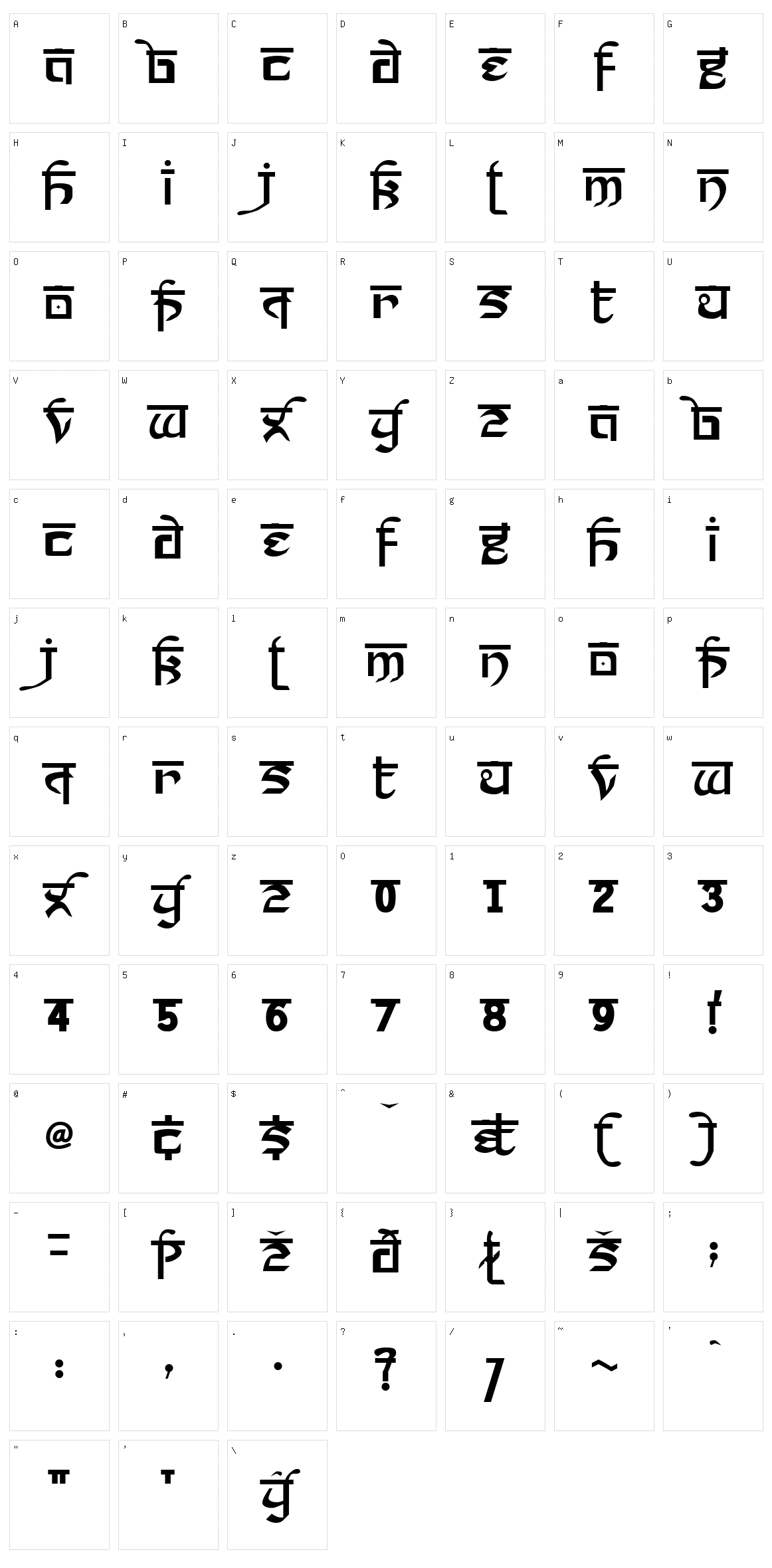
Prakrta
-------
pra.kr.ta -- stemming from the original (Sanskrit)
out during a class lecture in the spring of 1997. The Devanagari script,
on which Prakrta is based, has been in use with little change for
thousands of years in India and the adjacent nations.
fonts, especially fonts based on non-Roman scripts. Prakrta was drawn on
the computer from May 2nd to July 4th, 1997.